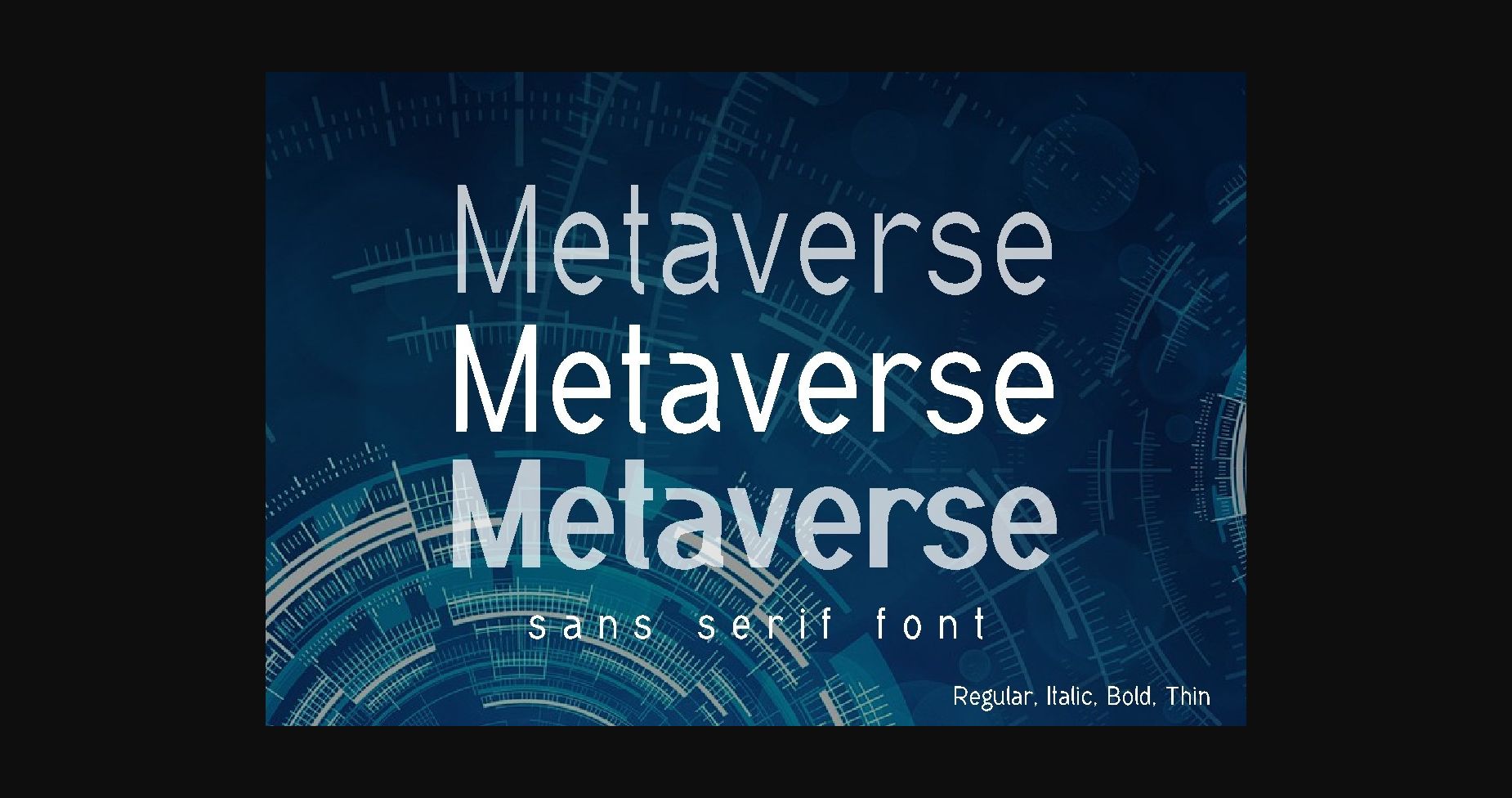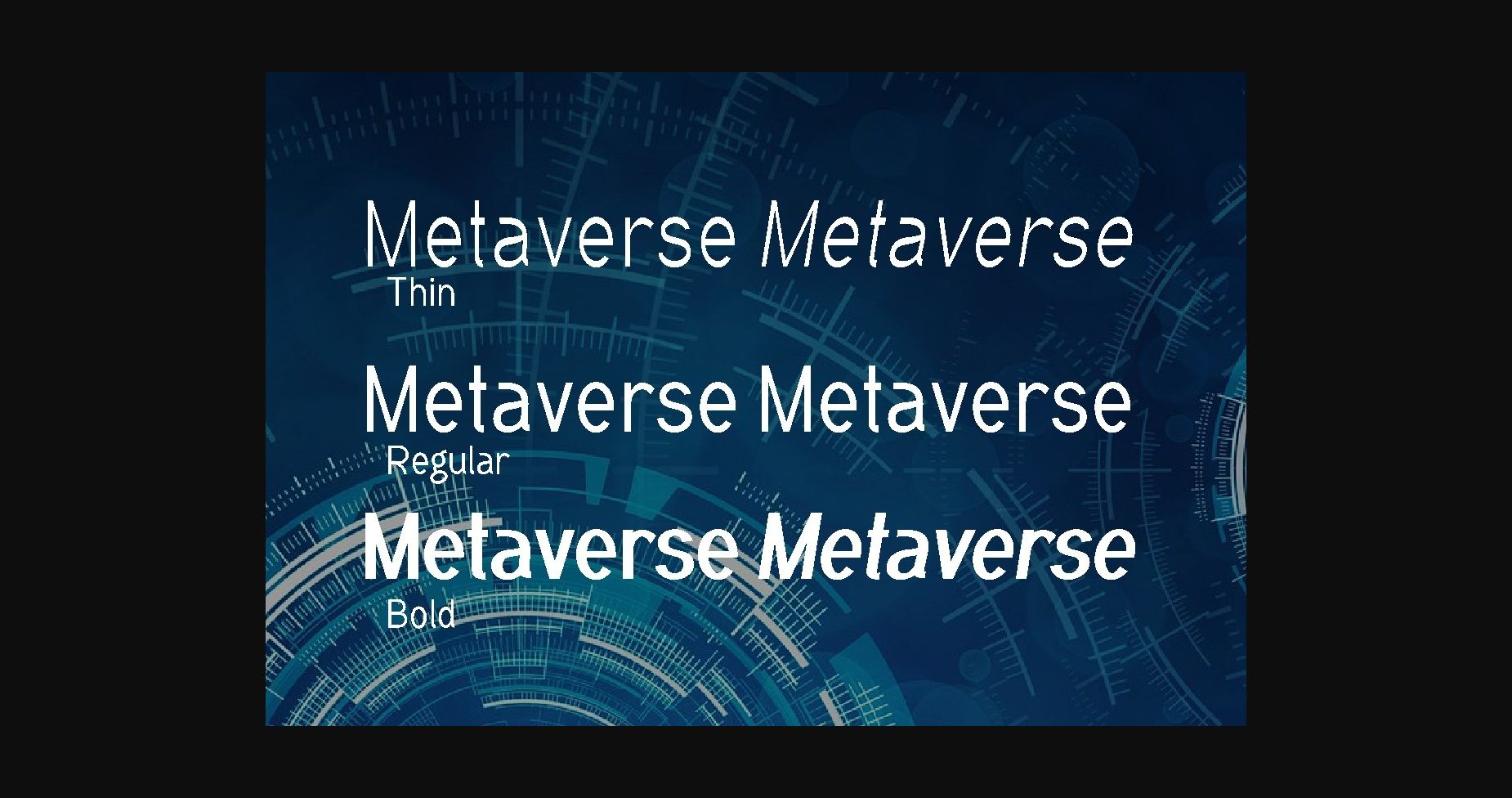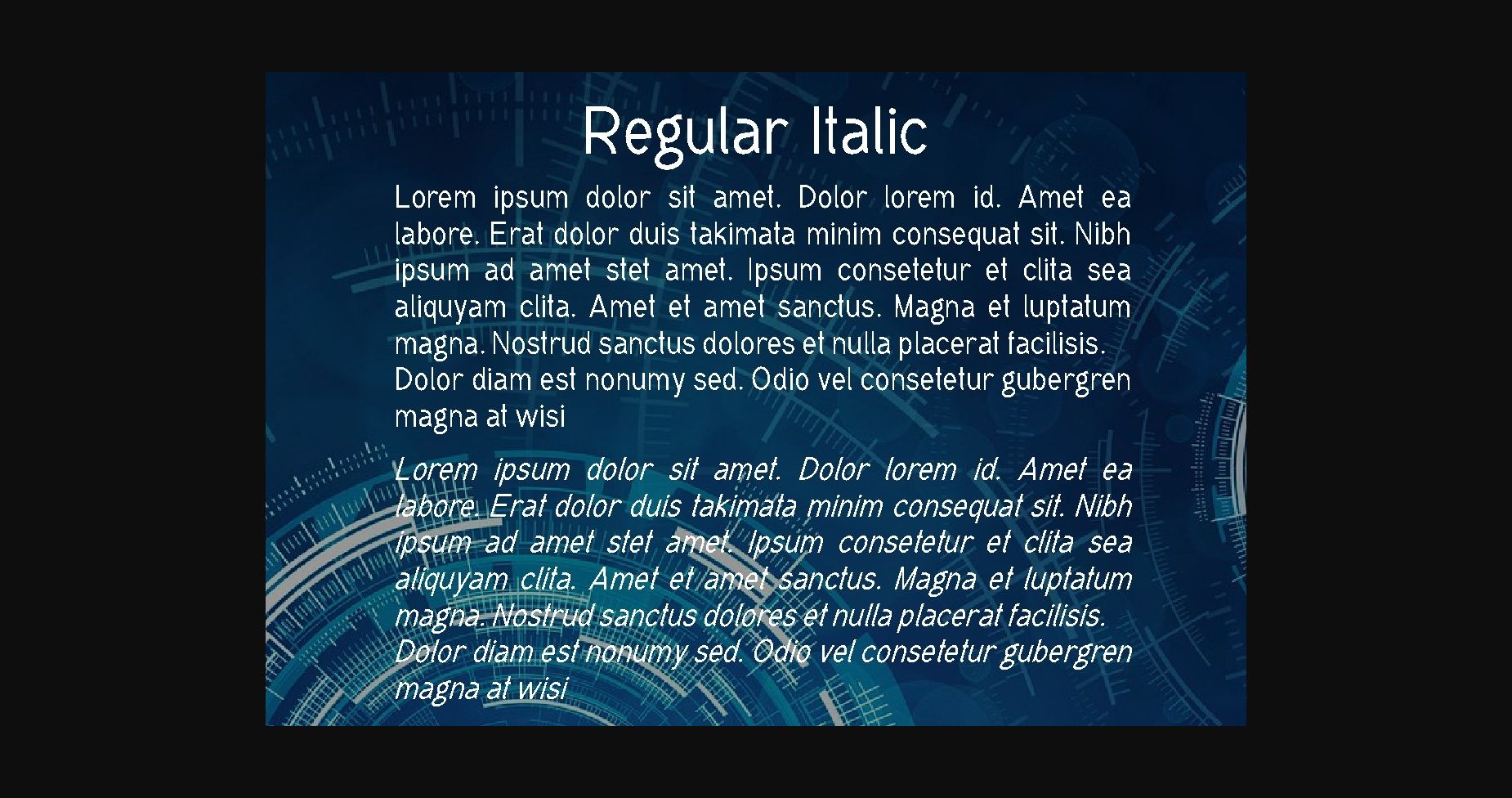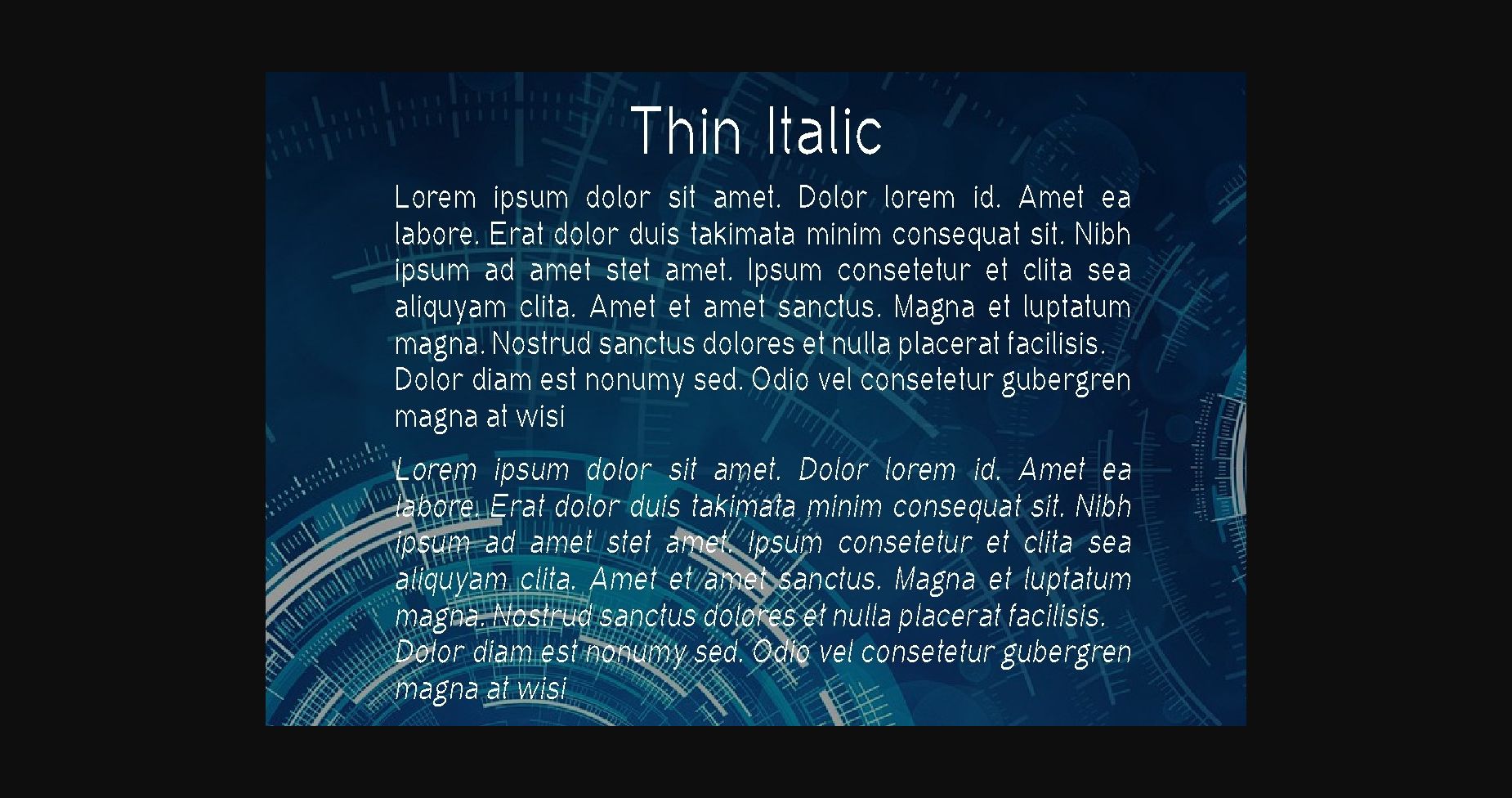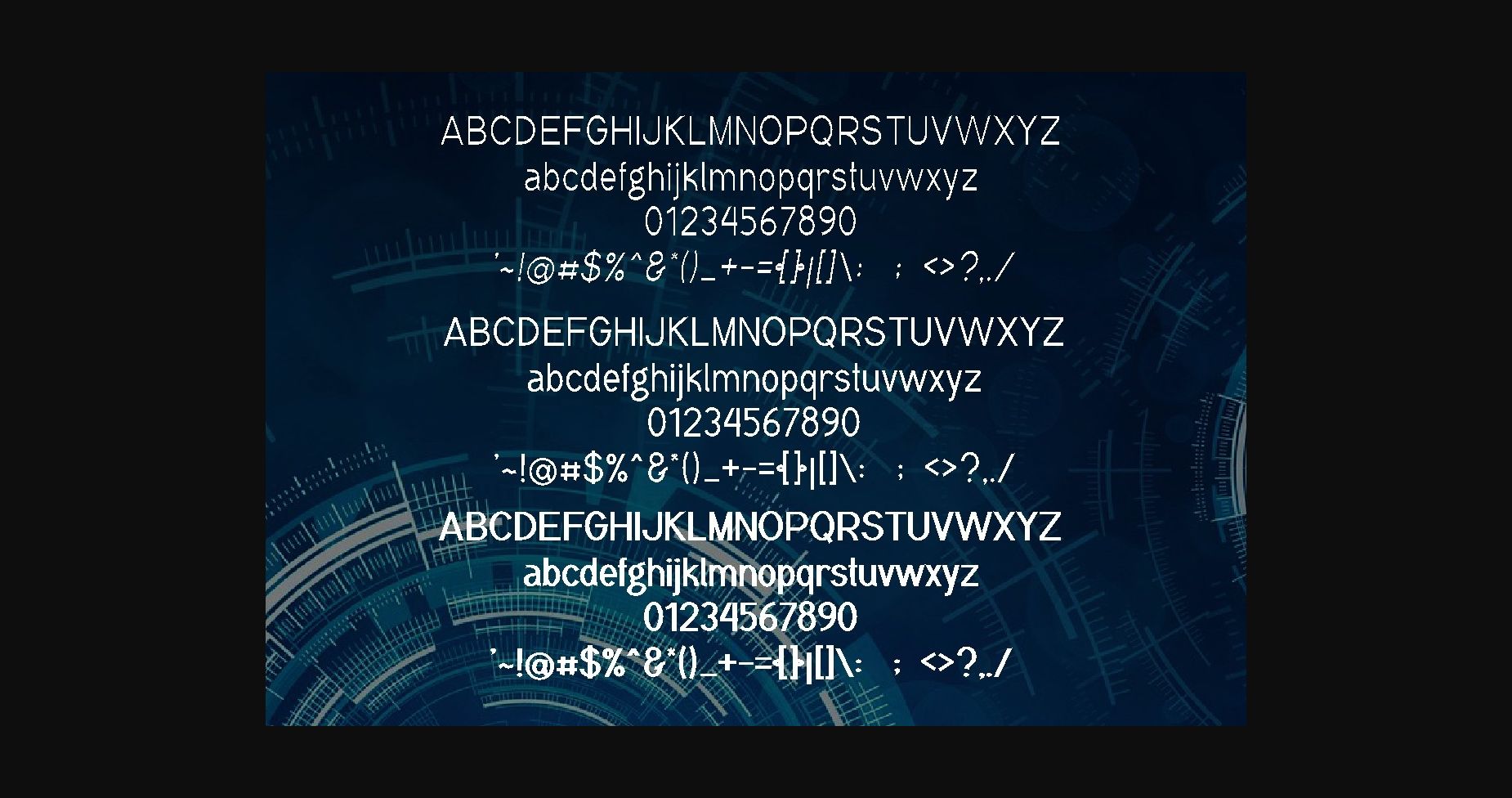
Metaverse Font
About Metaverse Font
Metaverse is a clean and adaptable sans serif font. It can effortlessly be matched to a large set of projects, so add it to your creative ideas and notice how it makes them stand out!